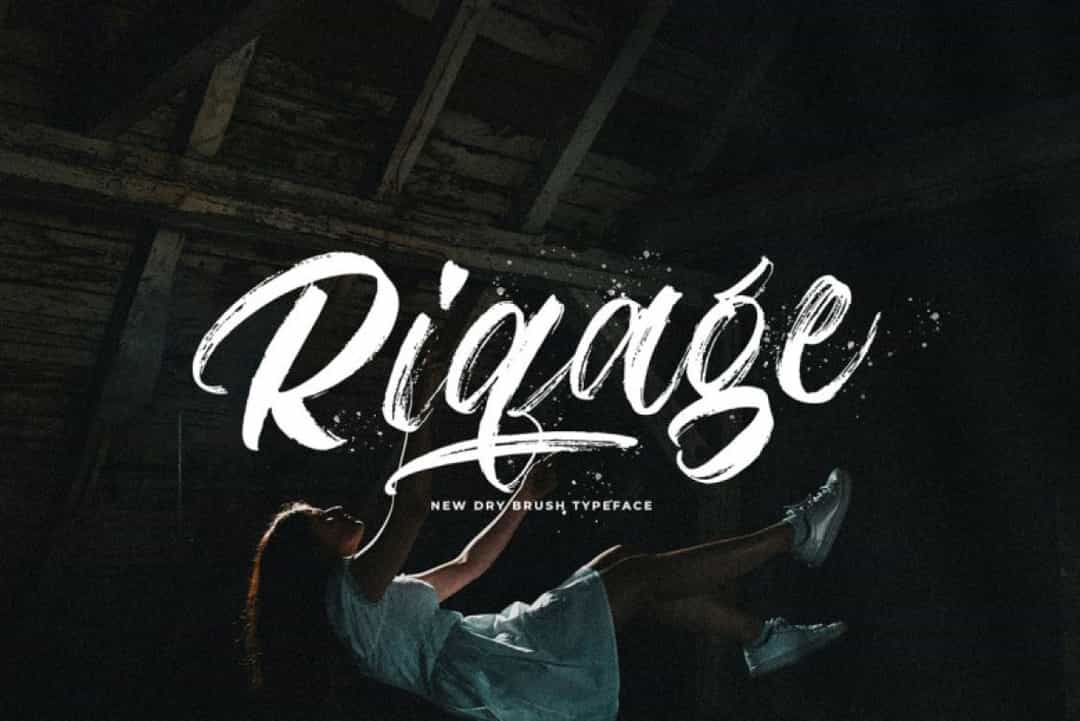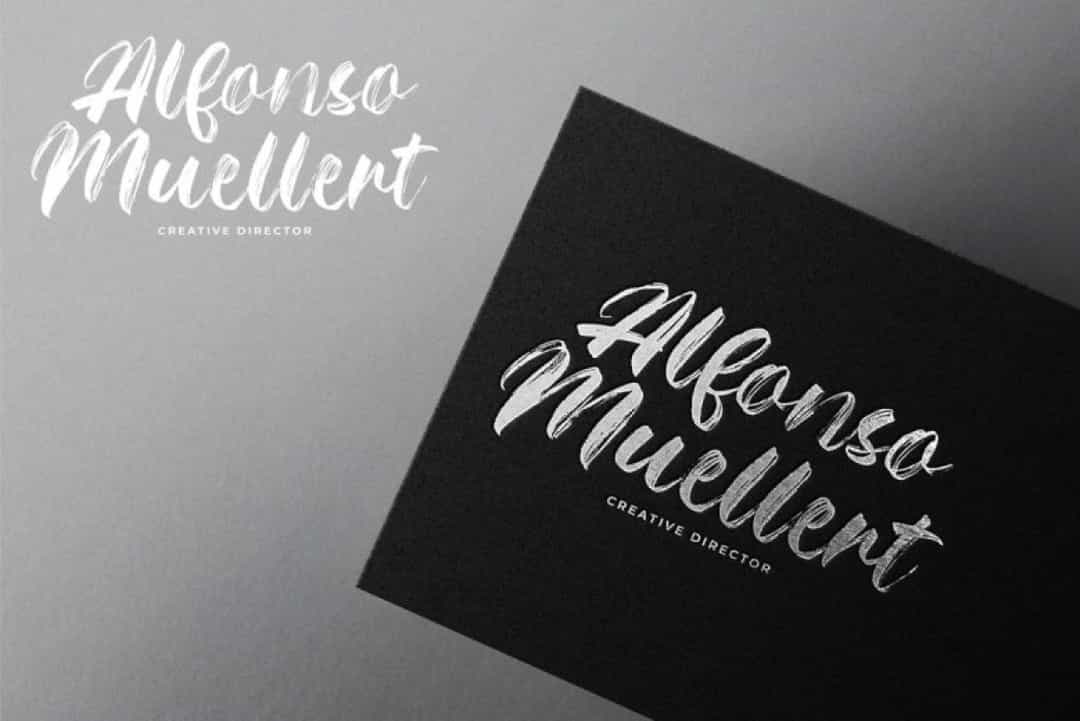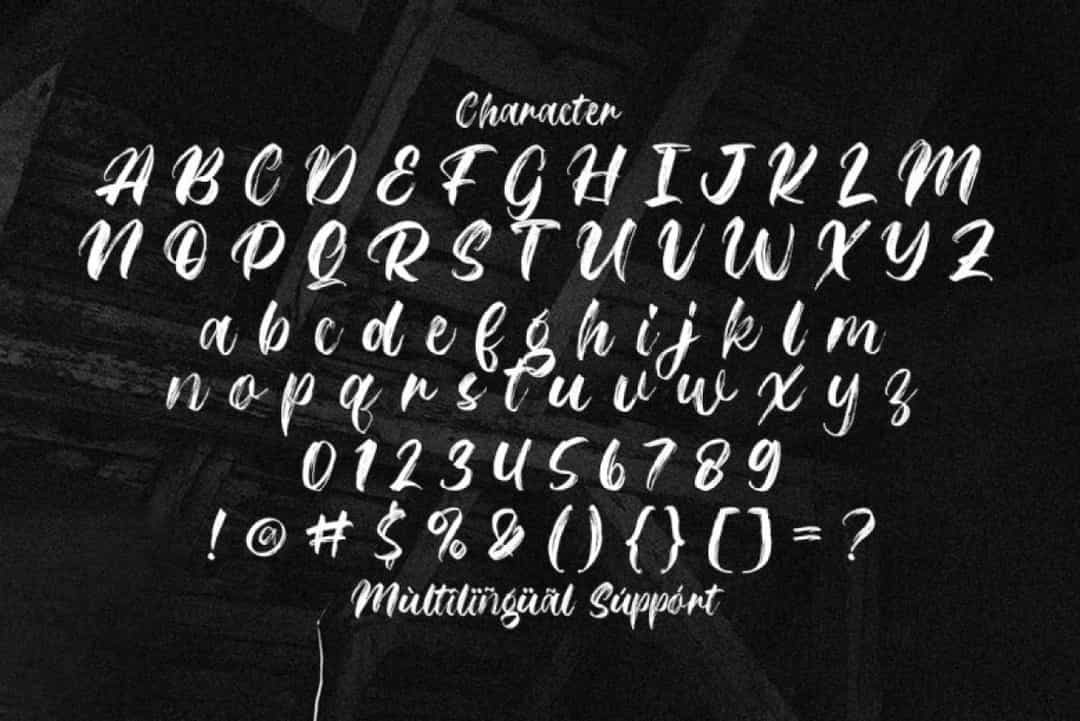
Riqage is an elegant yet captivating Dry Brush script typeface which looks realistic and natural, perfect for projects which require sophisticated yet elegant typography!